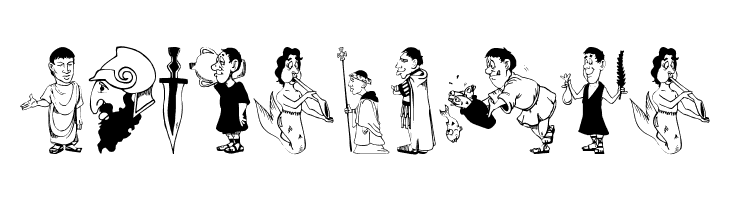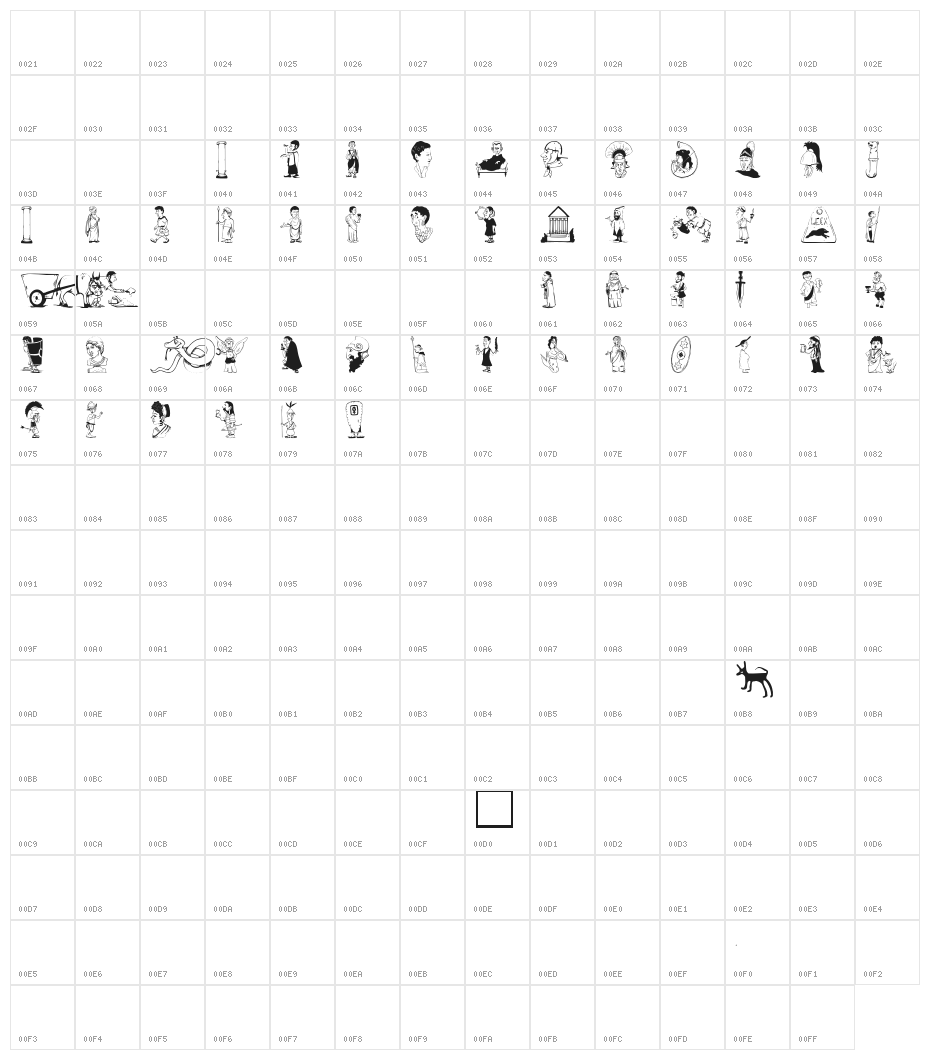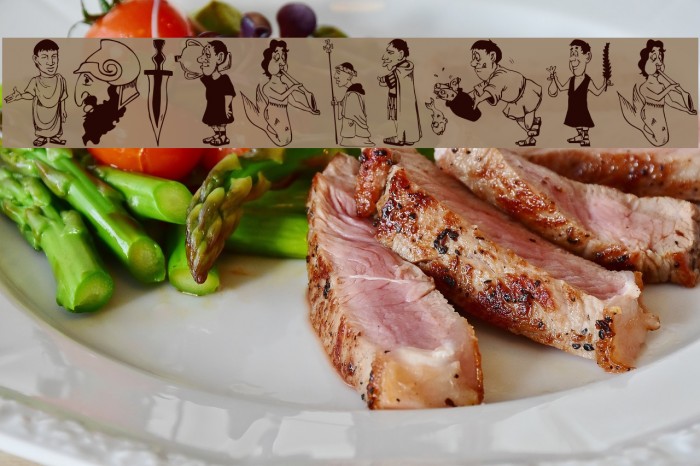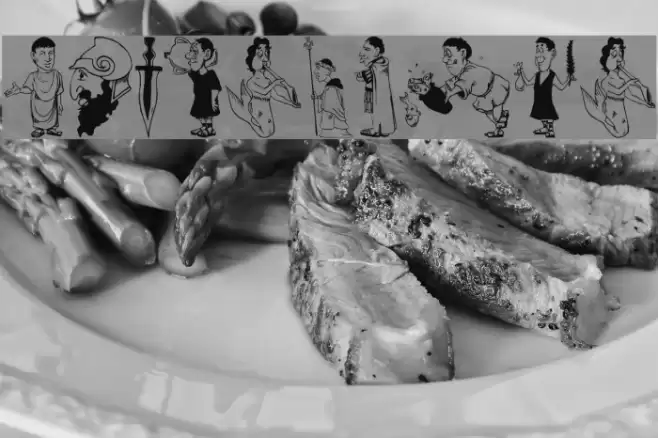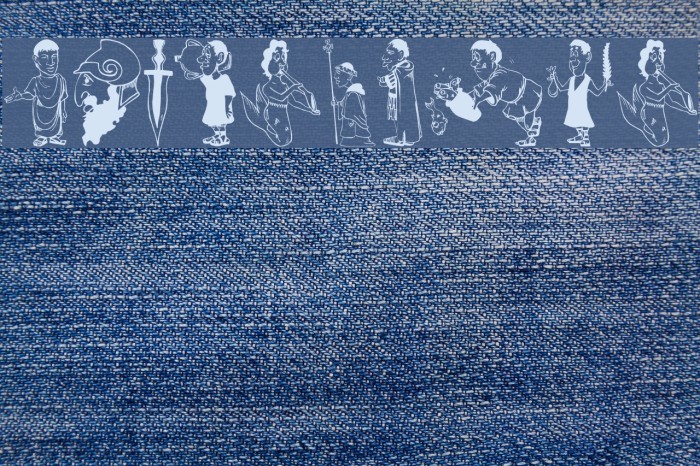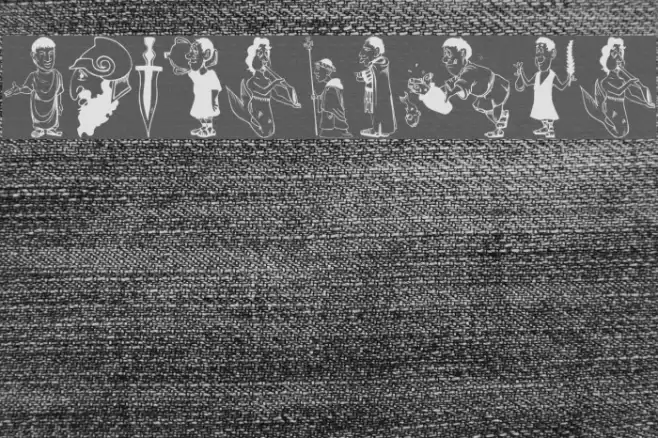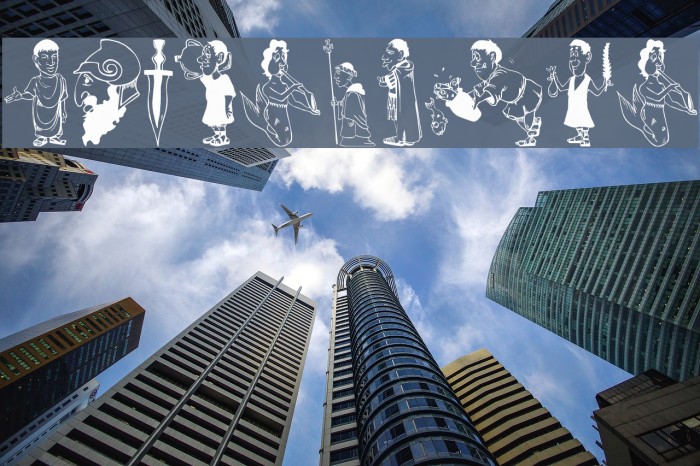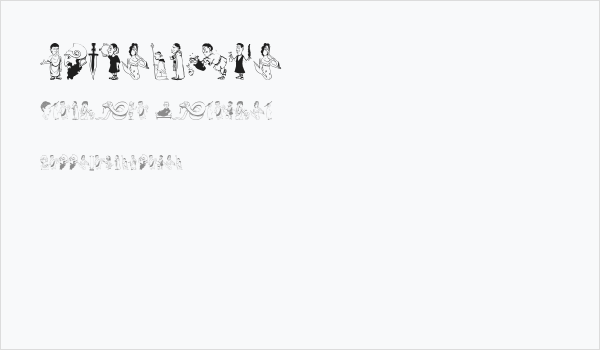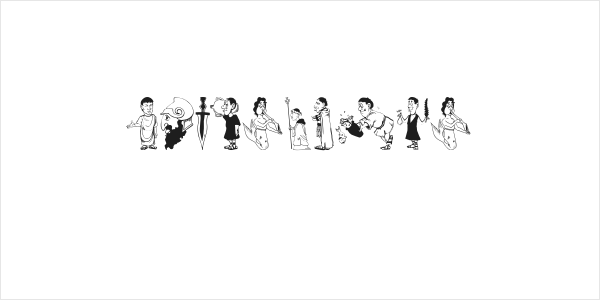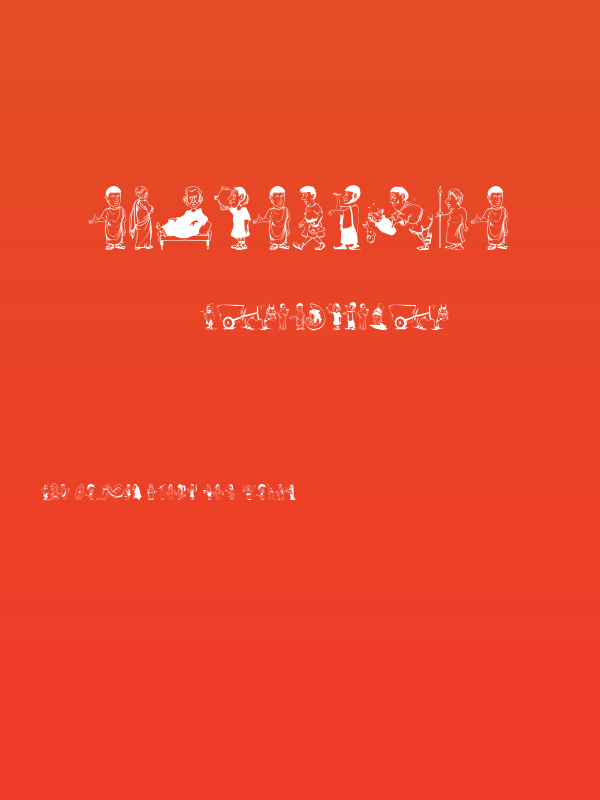
OldRomaUno Font
OldRomaUno Description
A highly decorative and illustrative font featuring detailed cartoon-style drawings of ancient Roman figures, objects, and symbols in place of traditional alphanumeric characters. Each glyph is a unique, playful depiction with strong outlines and varied levels of shading, evoking a historical and whimsical atmosphere.
| Overall Style | Decorative, Whimsical, Historical |
| Use Case | Logos, Posters, Themed Headlines, Educational Graphics |
| Proposed Projects | Educational materials, history-themed posters, childrenΓ’β¬β’s books, event flyers, themed party invitations, museum signage. |